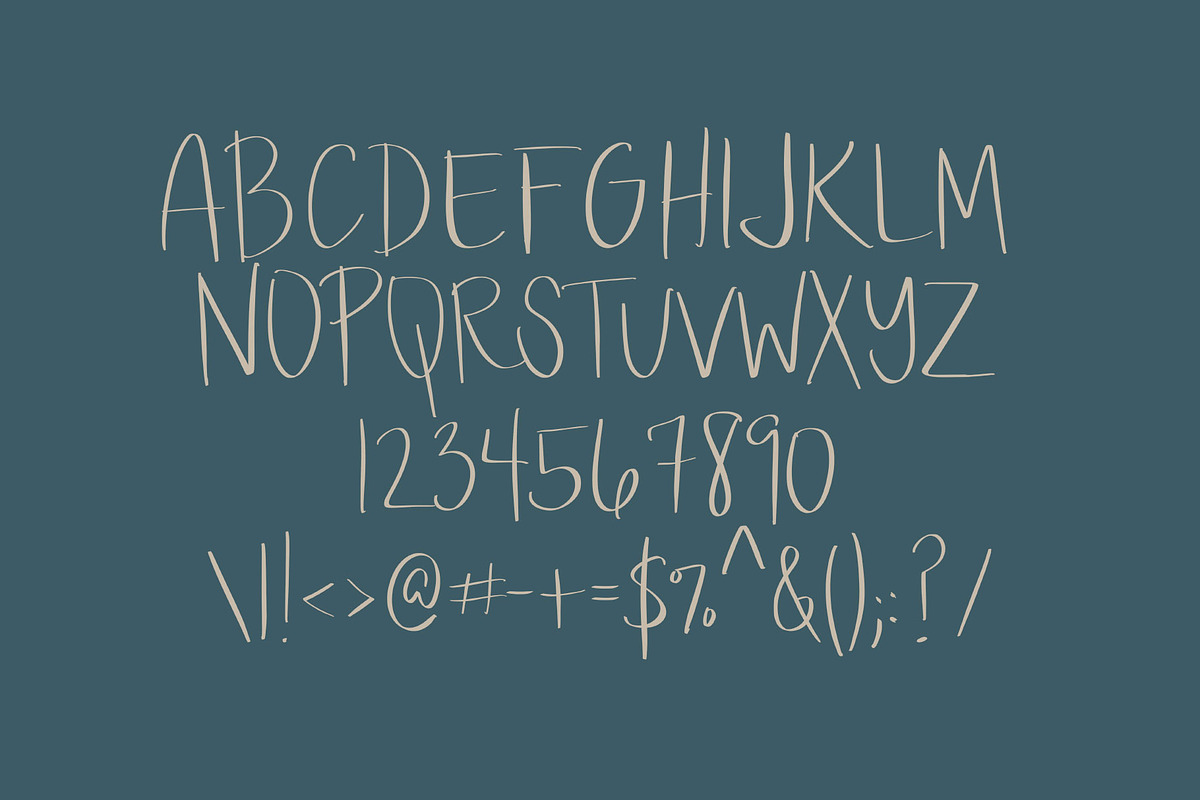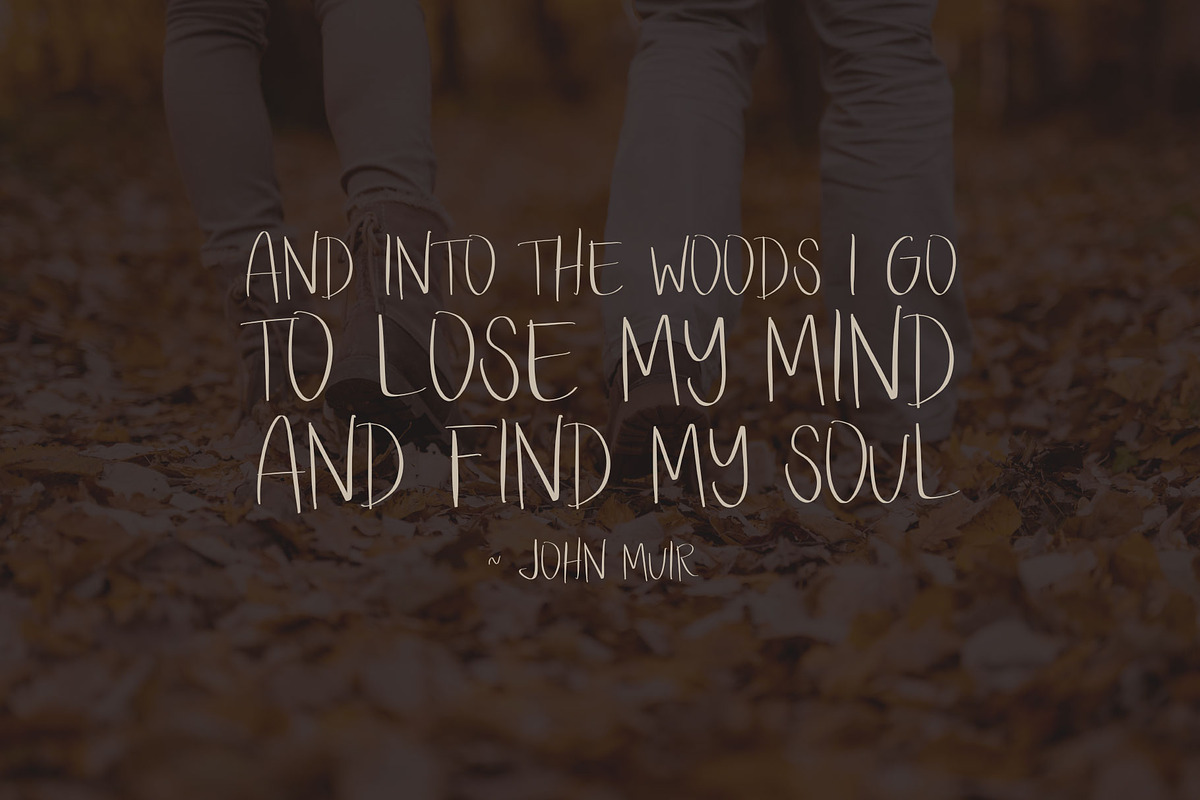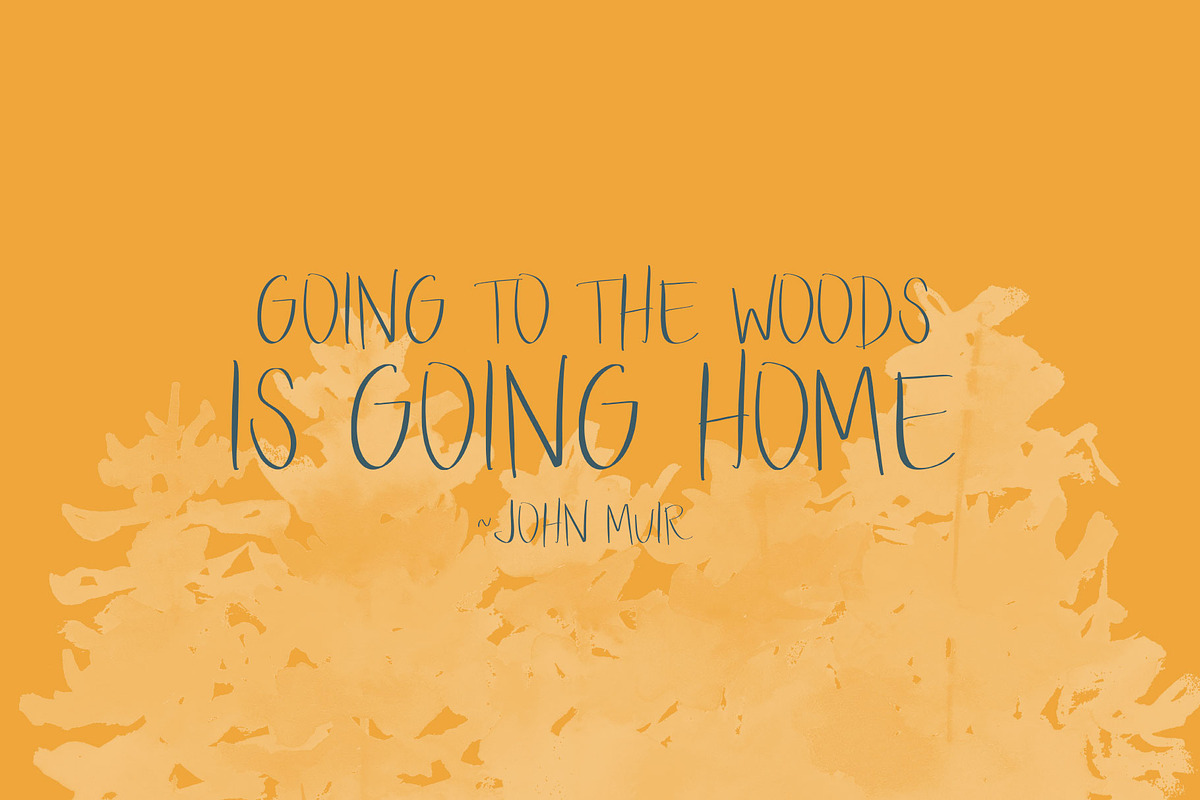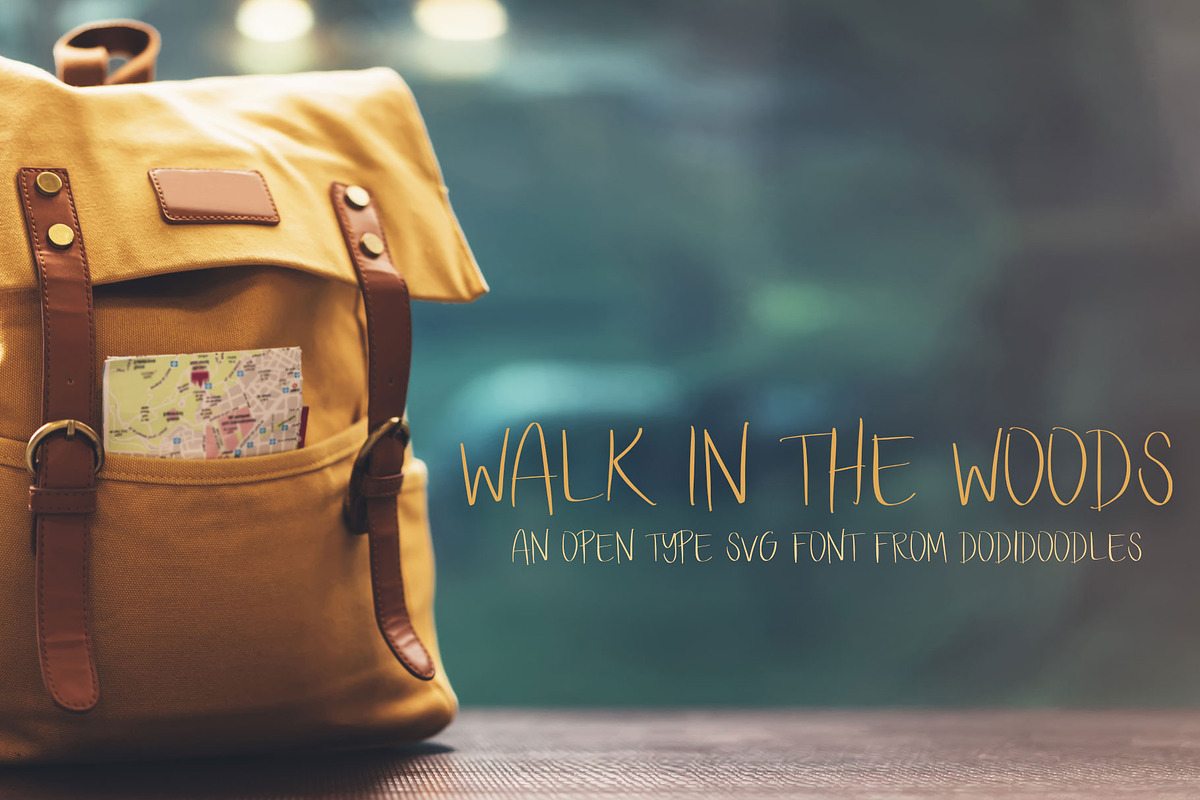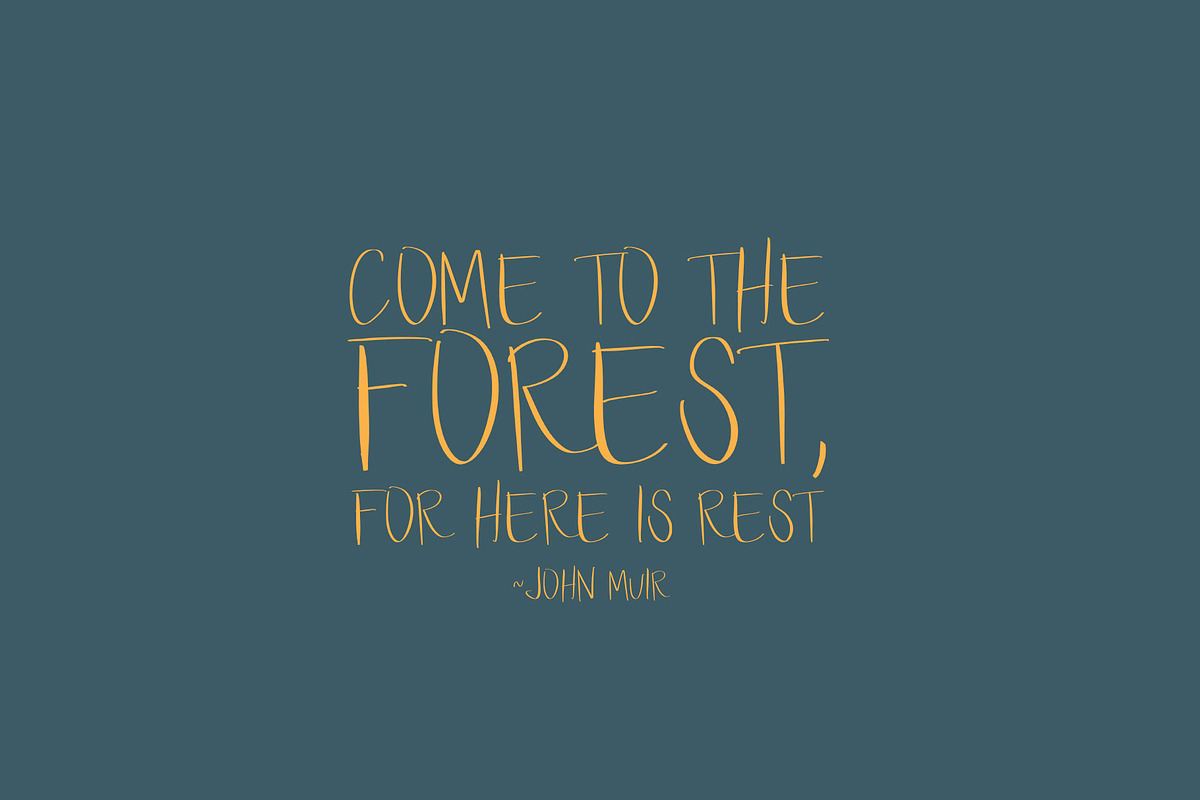
Walk in the Woods Open Type SVG
Walk in the Woods
An easy-going open type SVG font from dodidoodles. This handwritten font is all caps and can easily be used for quick projects or modern branding.